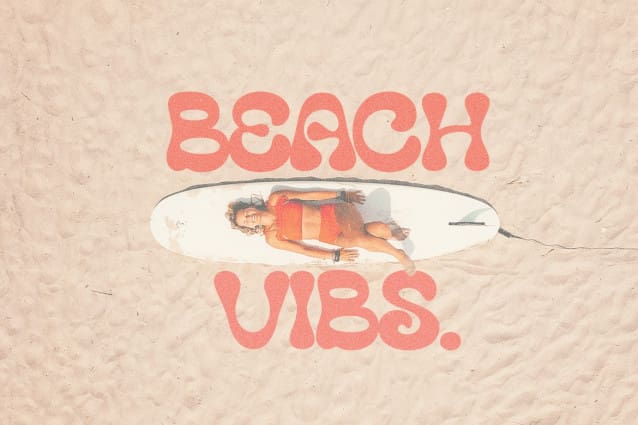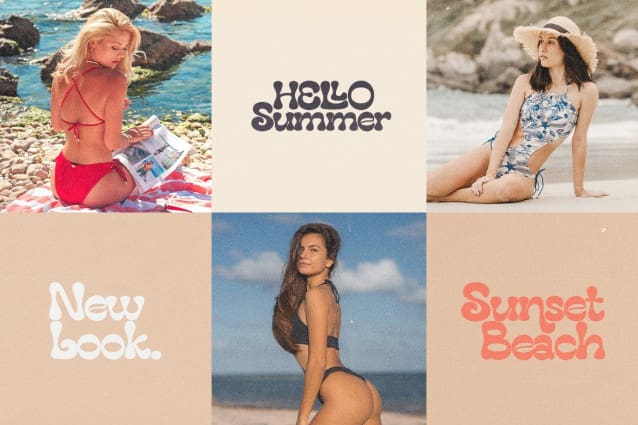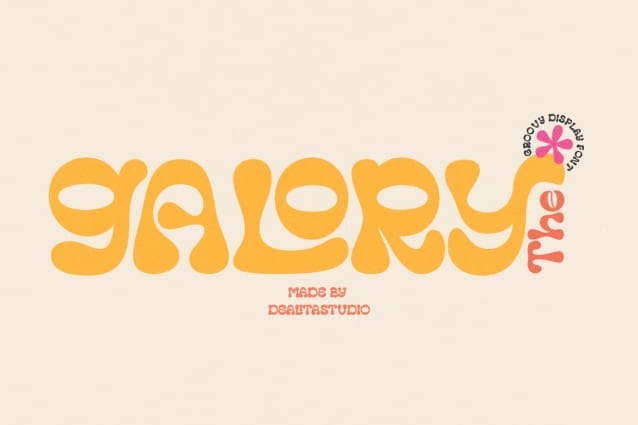
Galory Retro Font
Galory Retro Font, is a playful typeface that captures the essence of the 90s era. Immerse yourself in its retro charm. Perfectly made to be applied especially in logos, and the other various formal forms such as invitations, labels, logos, magazines, books, greeting/wedding cards, packaging, fashion, makeup, stationery, novels, labels, or any type of advertising purpose.